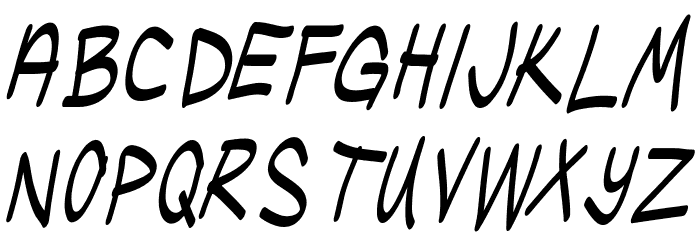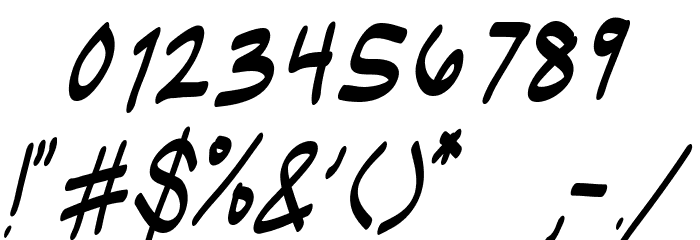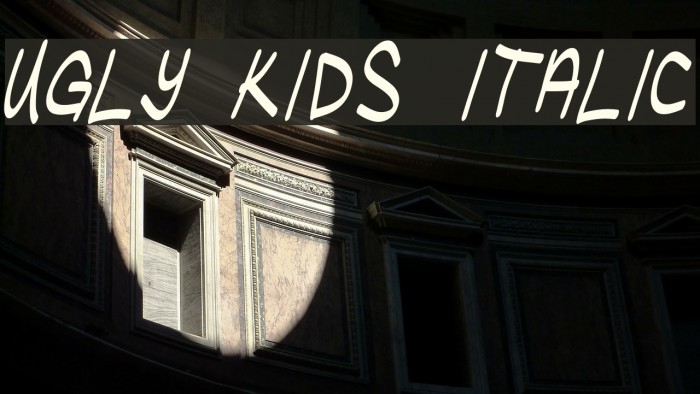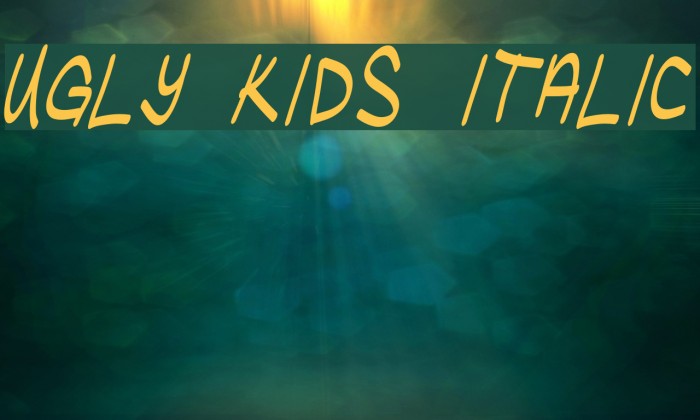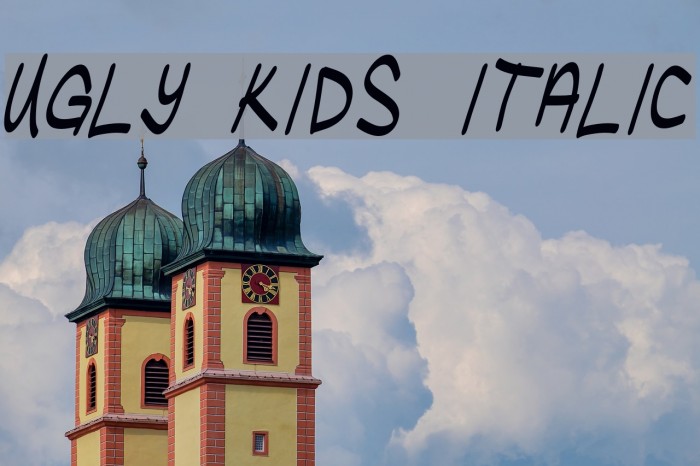
Ugly Kids Italic Font
This playful and dynamic font features a handwritten style with a slight slant, giving it an informal and casual appearance. The letters are bold and slightly irregular, adding a sense of spontaneity and energy. The uppercase and lowercase characters maintain a consistent style, with rounded edges and varying stroke widths that contribute to its lively character. The numerals and special characters follow the same design principles, ensuring a cohesive look across all glyphs. This font is ideal for projects that require a fun and approachable aesthetic.
A playful, handwritten font with a bold, dynamic style and slight slant.
- Proposed Projects: Ideal for children's books, playful branding, casual invitations, and creative posters.
- Overall Style: Casual, Playful